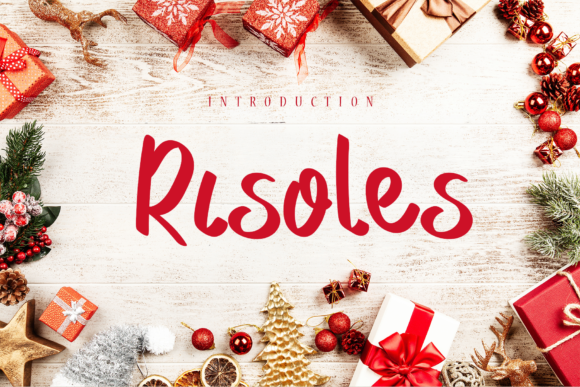
Introducing Risoles, a captivating script font that will ignite your imagination and add a touch of magic to your creative projects. With its enchanting strokes and graceful curves, Risoles is the perfect choice for crafting unique and unforgettable designs.
Step into a world of elegance and beauty as you explore the diverse characters of Risoles. Each letter is meticulously crafted to evoke a sense of charm and sophistication, making it the ideal font for creating captivating headers, logos, and branding materials that leave a lasting impression.
Transport your audience to a realm of enchantment with Risoles. Its whimsical nature adds a touch of playfulness and wonder to your designs, capturing attention and sparking curiosity. Whether you're designing invitations, posters, or social media graphics, Risoles will elevate your creations to new heights.
Unleash your creativity and let Risoles take center stage in your digital masterpieces. Its versatility knows no bounds, allowing you to effortlessly blend it with other fonts, graphics, and elements to create cohesive and visually stunning designs. Experience the joy of seamless integration as Risoles effortlessly complements your existing design aesthetic.
With Risoles at your fingertips, the possibilities are endless. Dive into a world of limitless expression and let your imagination soar. Embrace the beauty of this exquisite font and watch as your designs transform into captivating works of art.